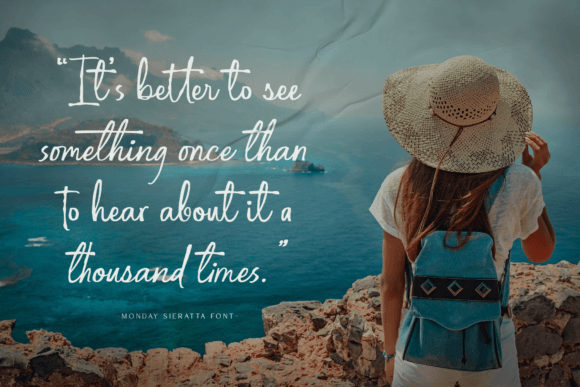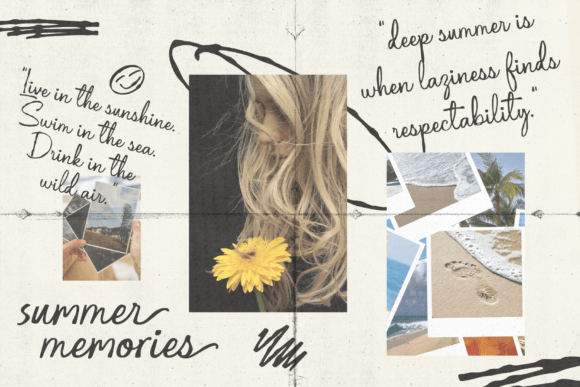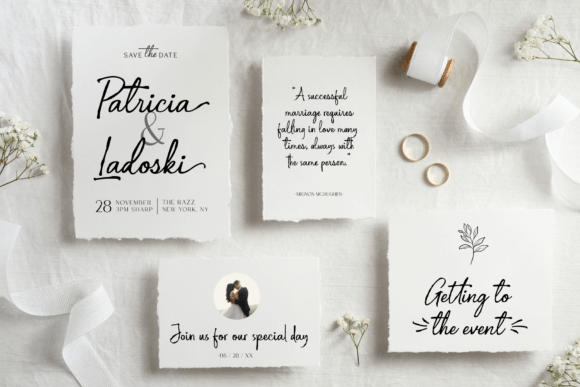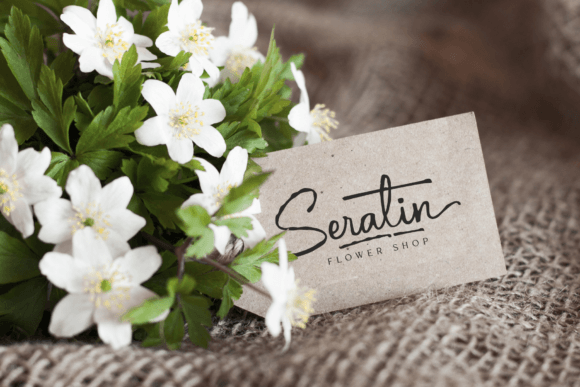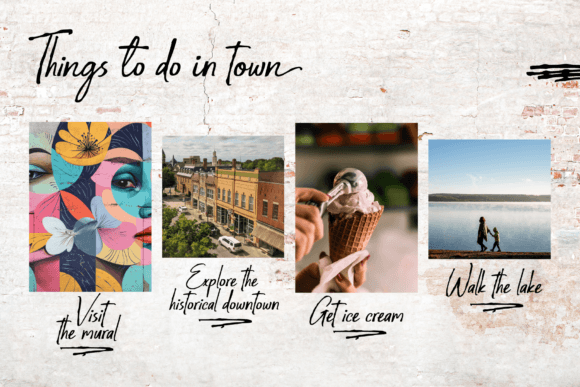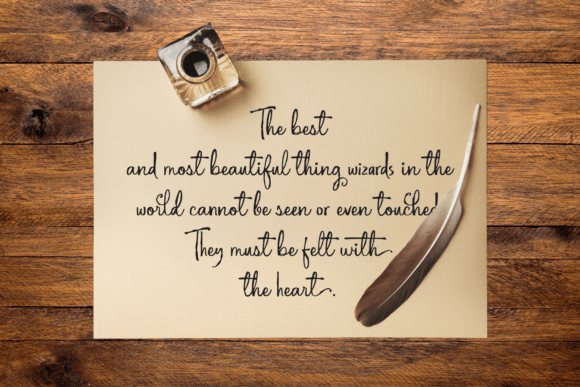
Introduction to Monday Sieratta Font Font
Fonts play a crucial role in design, and the Monday Sieratta Font font is a typeface that brings both character and versatility to any project. Whether you’re working on a branding project, a website, or a print design, the Monday Sieratta Font font offers a unique style that can elevate your work.
Introducing Monday Sieratta, a casual handwritten font designed to bring an organic feel to your projects.
With its assortment of over 400 unique glyphs, itβs an entire typography universe in one font Not only does it come with a stylish slanted version, but it also boasts an ensemble of alternate characters, ligatures, and swashes to fuel your creativity.
Key Features of Monday Sieratta Font Font
Why Choose Monday Sieratta Font Font?
The Monday Sieratta Font font is more than just a typeface β it’s a design tool that helps you communicate your message with style and clarity. Its unique character set and versatile design make it suitable for a wide range of applications, from elegant invitations to bold headlines.
With its carefully crafted letterforms and balanced proportions, the Monday Sieratta Font font ensures readability and visual appeal across all mediums.
What makes Monday Sieratta Font font special?
The Monday Sieratta Font font stands out with its unique design, exceptional readability, and versatility across various design applications.